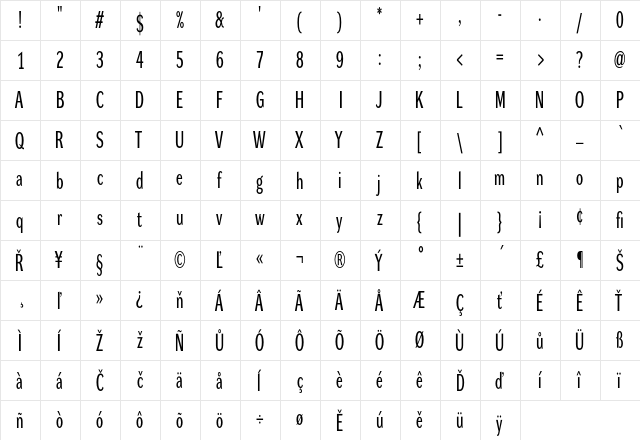
Dynamo RXC Regular
Design Context for Dynamo RXC Typeface
Dynamo RXC takes a measured approach to typography — its balanced proportions and neutral character make it a reliable workhorse for both digital and print work.